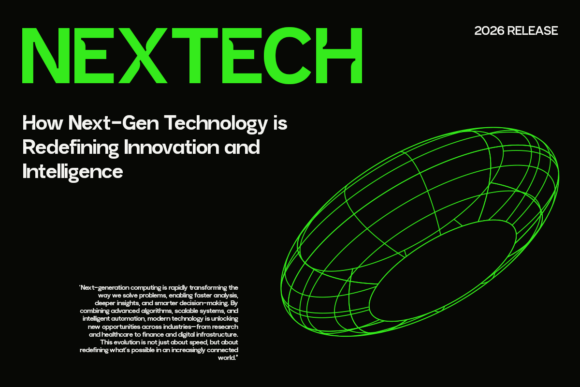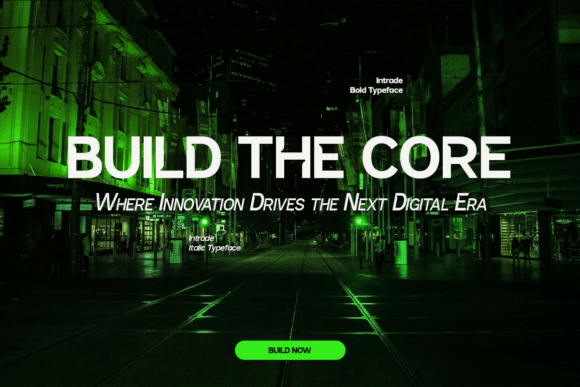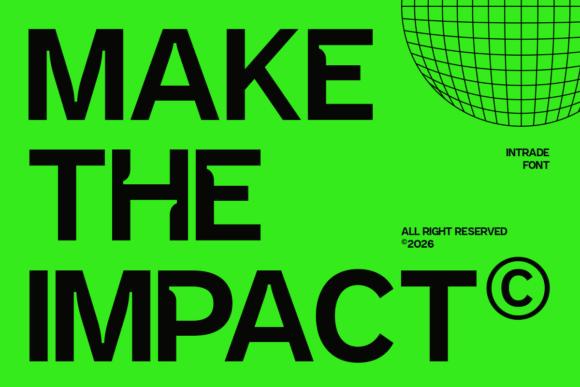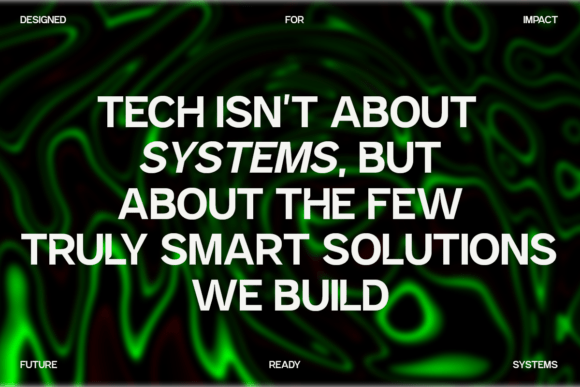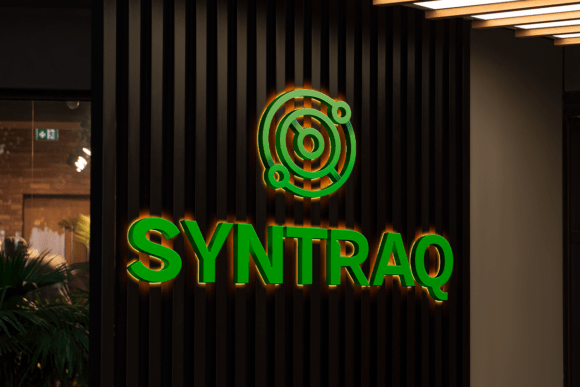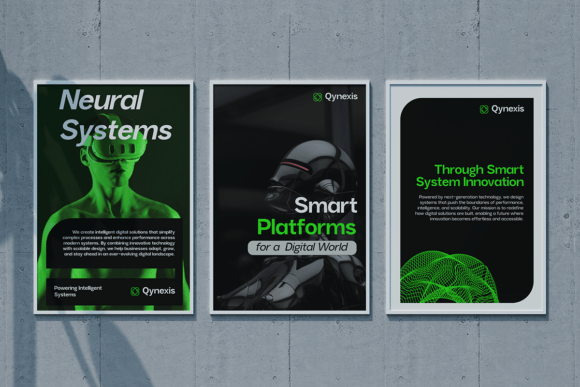
Introduction to Intrade Font
As a designer, there’s nothing quite like the rush of creating something new and innovative. You’re working on a project, pouring over every detail, and suddenly, you need the perfect font to bring it all together. That’s when you stumble upon something special – a font that captures the essence of modern technology and digital innovation. Welcome to the Intrade Font, a game-changing design resource that’s about to revolutionize the way you approach your creative projects.
With its sleek and forward-thinking aesthetic, the Intrade Font is the perfect choice for designers who want to give their projects a high-quality, modern look. Whether you’re working on branding, UI design, gaming titles, or digital products, this font delivers clarity, precision, and a futuristic edge that’s sure to impress. And the best part? It’s available for free download, making it an accessible design resource for creatives of all levels.
So, what makes the Intrade Font so valuable for designers? For one, its transparent background and clean geometric structure make it a breeze to work with, even on complex design projects. Plus, its simplicity ensures excellent readability, while its distinctive style keeps your work looking fresh and innovative. With the Intrade Font on your side, you’ll be able to take your creative projects to the next level and achieve the professional, high-tech look you’ve always wanted.
Intrade Font
- High-quality design: Intrade Font features a unique and elegant design, suitable for a wide range of creative projects.
- Transparent background: Intrade Font offers a transparent background, allowing designers to easily integrate it into their designs.
- Size: 5 styles, including regular, italic, bold, bold italic, and an alternate version.
- Unique characteristics: Intrade Font features a distinctive, modern design with a unique blend of geometric and organic elements.
Honest Review: Intrade Font
As a designer, I’m always on the lookout for high-quality fonts that can elevate my creative projects. Recently, I stumbled upon the Intrade Font, and I must say, it’s been a game-changer.
- Transparent background: I love that the font has a transparent background, making it easy to overlay on any design.
- High quality: The font is crisp and clean, perfect for a variety of design projects.
- Limited character set: While the font is high quality, it’s limited in terms of character set, which can be a drawback for designers who need a wide range of characters.
- Not suitable for small text: Due to its elegant design, the font can be difficult to read in small text sizes.
Overall, I’m impressed with the Intrade Font. It’s a great addition to any designer’s toolkit, but it’s essential to be aware of its limitations. With careful use, this font can elevate your creative projects to the next level.
Intrade Font
The Intrade Font is a high-quality design resource perfect for creative projects. With its sleek and modern design, it’s ideal for a variety of applications.
Tips for Getting the Most Out of Intrade Font
To get the most out of the Intrade Font, experiment with different font sizes and styles to achieve a cohesive look. You can also use the font with a transparent background for added versatility.
The Intrade Font is ideal for creative projects, such as brochures, business cards, and social media graphics. Its modern design makes it perfect for showcasing your brand or business in a sleek and professional manner.